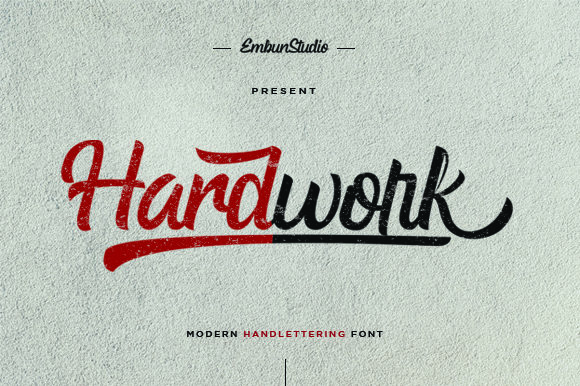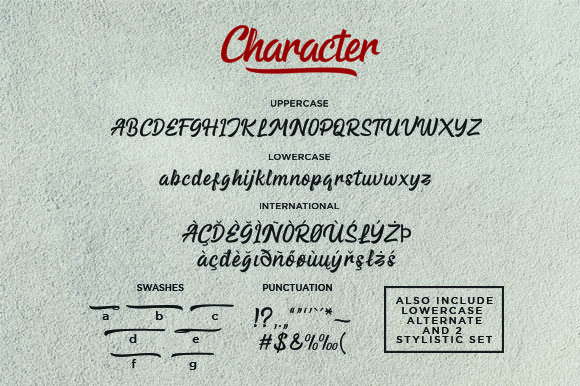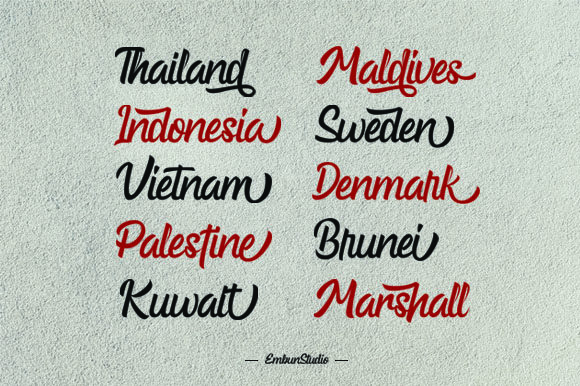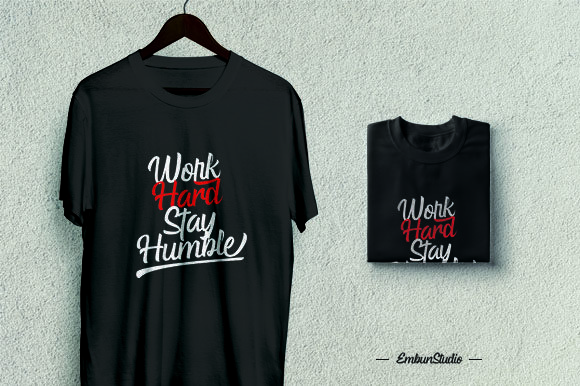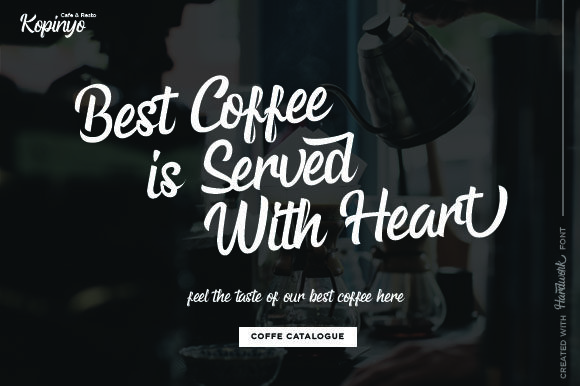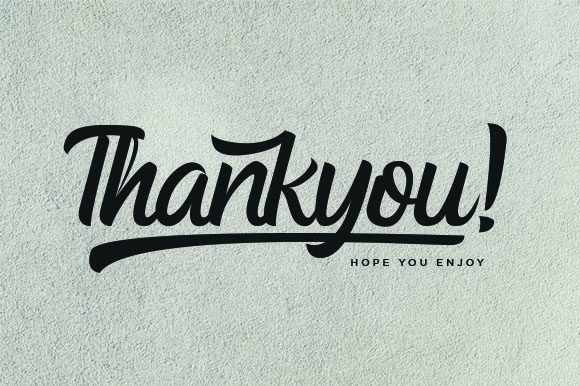
HomeScript FontsHardwork Font Script Fonts Hardwork Font FacebookXPinterestWhatsApp Hardwork Font Poster 2 Hardwork Font Poster 3 Hardwork Font Poster 4 Hardwork Font Poster 5 Hardwork Font Poster 6 About Hardwork Font Clean, neat, modern and full of charm: Hardwork is a bold and strong script with a vintage look. DOWNLOAD NOW People also explored Alinggate Signature Font Maudy Silky Line Font Couple Romantic Font Hargael Duo Font Angelinado Font Anety Seytigah Font Gesttrak Font Romantique Font Rasa Strong Font 305 0 TagsHardwork Font Previous articleCendonagh FontNext articleEmma Signature Font LEAVE A REPLY Cancel reply Comment: Please enter your comment! Name:* Please enter your name here Email:* You have entered an incorrect email address! Please enter your email address here Website: Save my name, email, and website in this browser for the next time I comment. Personal Use Free Hearted Personal Use Free Read more about this font Moon Light Personal Use Free Read more about this font Nottingsam Personal Use Free Read more about this font Angista Script Personal Use Free Read more about this font BLOG Free vs Paid Fonts: Why Investing in Premium Fonts Is Worth It Free vs Paid Fonts: Why Premium Fonts Are Worth It in 2025 The debate of free vs paid fonts continues in the design world. While... 5 Fonts That Will Dominate Design Trends in 2026 The 10 Best Handwriting Fonts to Add Personality to Your Designs Top 7 Google Fonts Alternatives for Faster and Privacy-Friendly Web Design (2025)